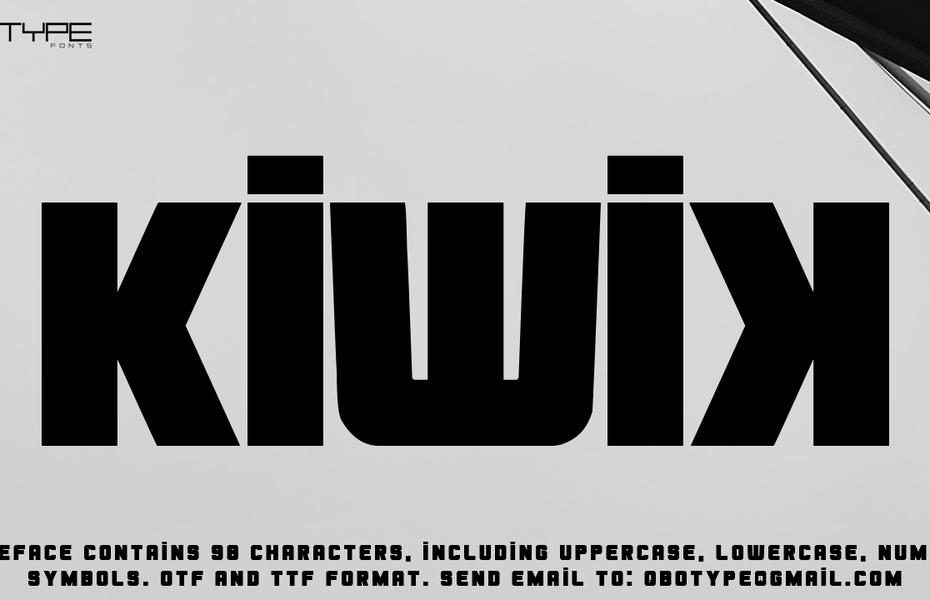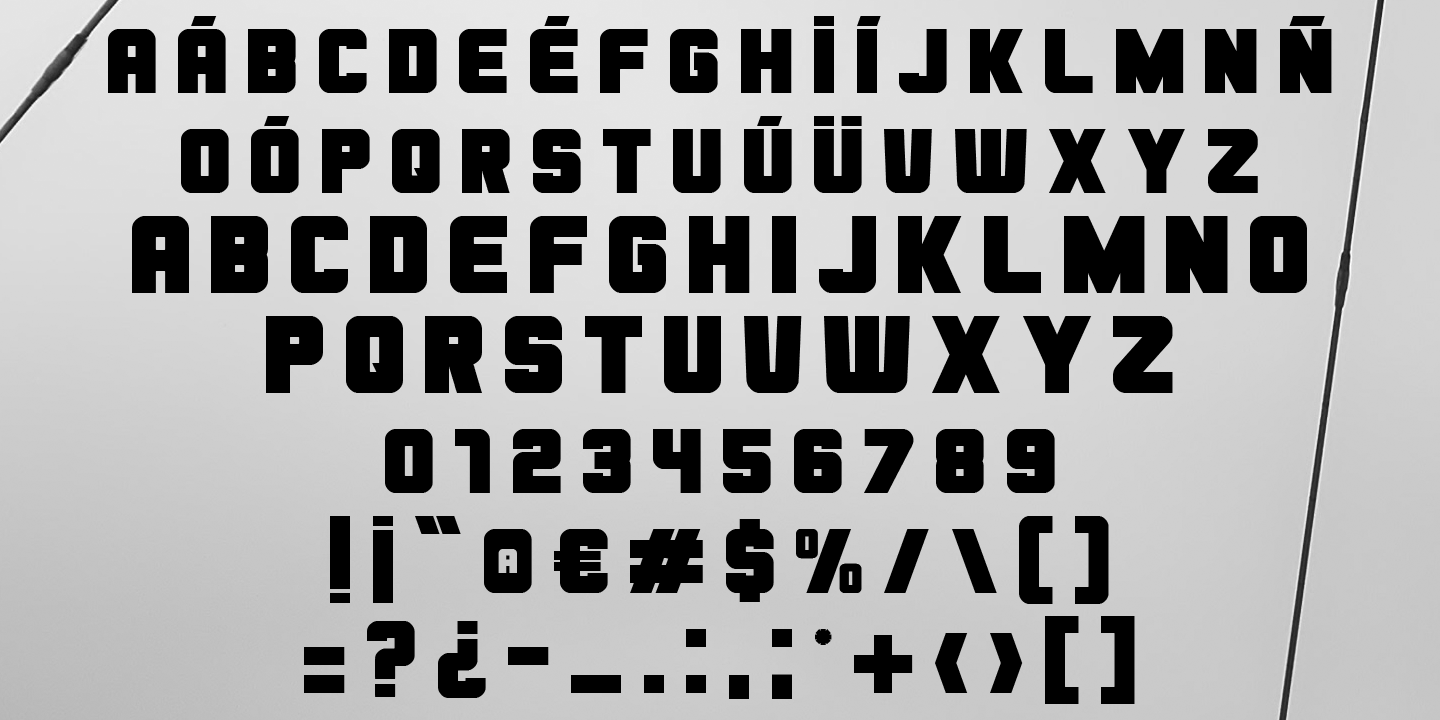
The Birth of a New Font: Kiwik Font
Have you ever found yourself in the middle of a creative project, struggling to convey your message with the perfect font? That’s exactly where I was when I stumbled upon the Kiwik Font. As a designer, I’m always on the lookout for fonts that are both beautiful and functional, and Kiwik Font fits the bill perfectly.
Kiwik Font is a bold, sans-serif typeface created by Carlos Daniel Matteoli. Its purpose is to provide a clear and legible reading experience, making it an excellent choice for a wide range of design applications. From digital interfaces to print materials, Kiwik Font is a valuable asset for designers looking to elevate their work.
Kiwik Font Key Features
- Font Family: Kiwik Font is a sans-serif font family designed for modern digital interfaces.
- Unique Characteristics: Kiwik Font features a unique blend of geometric and organic shapes, with a focus on legibility, clarity, and modern aesthetic appeal.
- Font Weight: Kiwik Font includes 8 font weights, ranging from Light to Extra Bold, providing flexibility for various design applications.
Kiwik Font Review
Kiwik Font is an interesting addition to the world of digital typography. ✨ One of the things that stands out about this font is its unique blend of playful and modern elements. The rounded edges and curved lines give it a friendly, approachable feel that can work well in a variety of contexts.
Another advantage of Kiwik Font is its versatility. ✨ It comes in a range of weights and styles, making it easy to find the perfect version to suit your needs. From light and airy to bold and statement-making, there’s a version of Kiwik Font that’s sure to fit the bill.
- ⚠️ Kiwik Font may not be the best choice for formal or professional applications, as its playful nature can come across as immature or unpolished.
- ⚠️ Some users may find the font’s rounded edges and curves to be distracting or difficult to read, particularly in smaller sizes.
Overall, I’d say that Kiwik Font is a solid choice for designers looking to add some visual interest to their projects. While it may not be the most sophisticated or elegant font out there, it’s definitely a fun and playful option that can add some personality to your designs.
Getting the Most Out of Kiwik Font
To get the most out of Kiwik Font, use it in combination with bold and italic styles to add emphasis to your text. You can also experiment with different font sizes and colors to create a visually appealing design.
Kiwik Font is commonly used in creative projects such as logos, branding materials, and digital art. It’s also suitable for use in social media graphics, presentations, and documents.